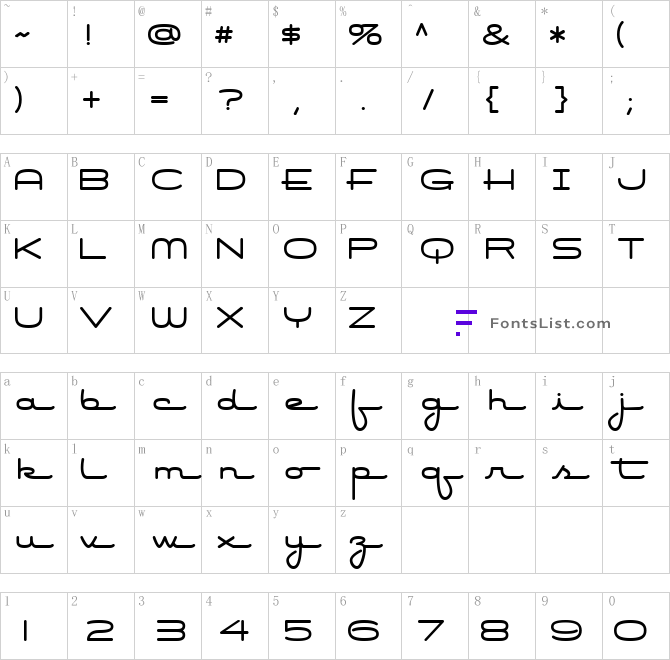
- Font Name:Air Conditioner
Air-Conditioner.ttf is a very beautiful artistic font, Air-Conditioner.ttf is widely used in the design and printing of various books and pictures,Air-Conditioner.ttf has a strong visual impact,Air-Conditioner.ttf is a commonly used font in newspapers, magazines and books, and is used in posters, e-commerce Poster design, store design, logo design, font design and other fields.Air-Conditioner.